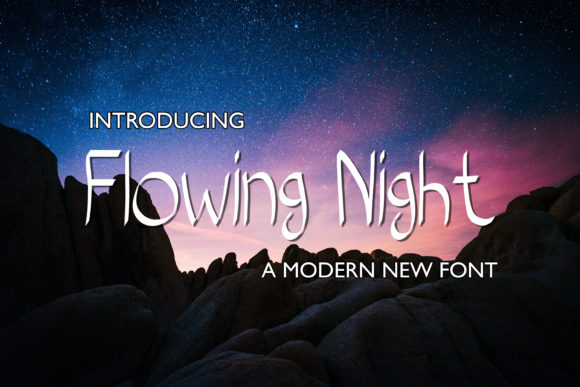
The Elusive Perfect Font: A Designer’s Love Affair with Flowing Night
I’ll never forget the countless hours I spent searching for the perfect font for a wedding invitation project. My client wanted something elegant, yet playful; something that would make their special day feel truly unique. As I scrolled through font after font, I felt like I was stuck in a never-ending loop of sameness. That was until I stumbled upon Flowing Night, a simple, light, and adaptable handwritten font that stole my heart.
An Honest Review of Flowing Night
What I Love About Flowing Night ✨
- ✅ Its effortless, handwritten charm makes it perfect for a variety of designs, from wedding invitations to greeting cards.
- ✅ The font’s light and airy feel ensures it never overpowers the design, making it ideal for pairing with images or illustrations.
- ✅ Flowing Night is highly adaptable, allowing it to seamlessly transition from formal to casual designs.
- ✅ Its unique character makes it an excellent choice for logos, branding, and other applications where personality is key.
- ⚠️ Some users may find the font’s simplicity too plain for certain designs, requiring additional embellishments.
- ⚠️ As with any handwritten font, it may not be the best choice for very long blocks of text, such as articles or paragraphs.
A Practical Guide to Using Flowing Night
The Story Behind Flowing Night
Flowing Night was created with the intention of capturing the essence of a handwritten font that’s both elegant and approachable. The designer aimed to create a font that would be versatile enough to use in a variety of contexts, from formal events to casual designs. The result is a font that’s both beautiful and highly adaptable.
| Font Name | Flowing Night Font |
| Author | morningmondayy |
Q: What makes Flowing Night suitable for wedding invitations?
A: Flowing Night’s elegant, handwritten charm makes it perfect for wedding invitations, adding a touch of sophistication and romance to the design.
Q: Is Flowing Night available in different weights or styles?
A: While Flowing Night is primarily available as a single weight, its adaptability and range of OpenType features make it easy to adjust and modify to suit your design needs.
Q: How does Flowing Night compare to other handwritten fonts?
A: Flowing Night stands out from other handwritten fonts due to its unique balance of elegance and playfulness, making it an excellent choice for a wide range of designs.